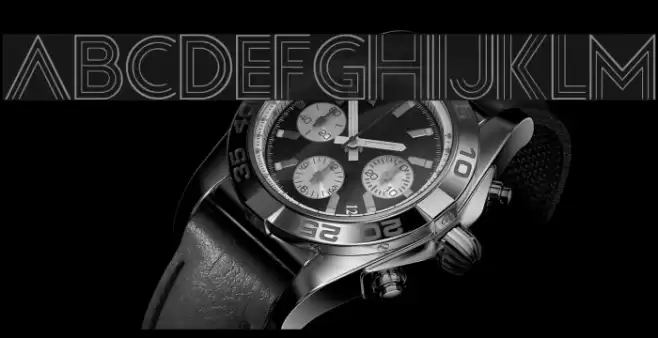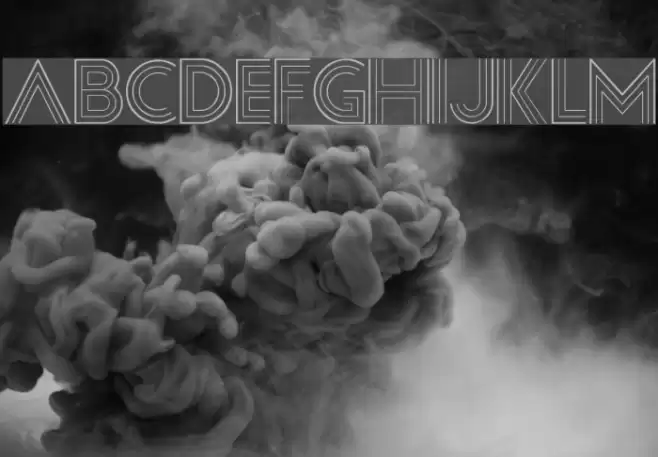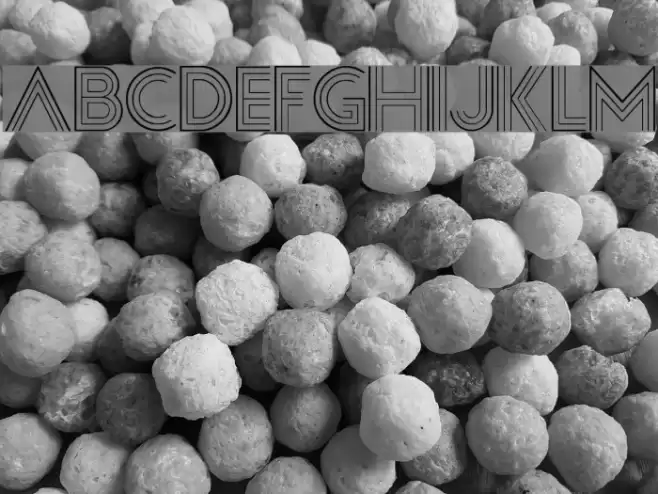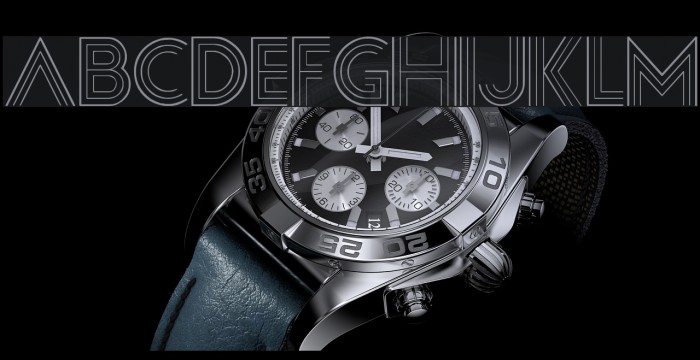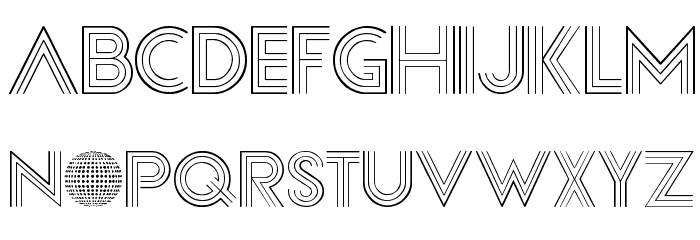
Confessions
This font features a unique and modern design with a geometric and linear style. The uppercase letters are characterized by multiple parallel lines that create an outline effect, giving it a futuristic and sophisticated appearance. The lowercase letters and numbers maintain a clean and bold look, providing a strong visual impact. The special characters are designed to complement the overall aesthetic, making it suitable for creative and contemporary projects. The font's distinct style makes it ideal for use in branding, advertising, and digital media where a striking and memorable impression is desired.
A modern, geometric font with a linear, outline style for a futuristic look.
- Proposed Projects: Ideal for branding, advertising, digital media, and creative projects requiring a modern touch.